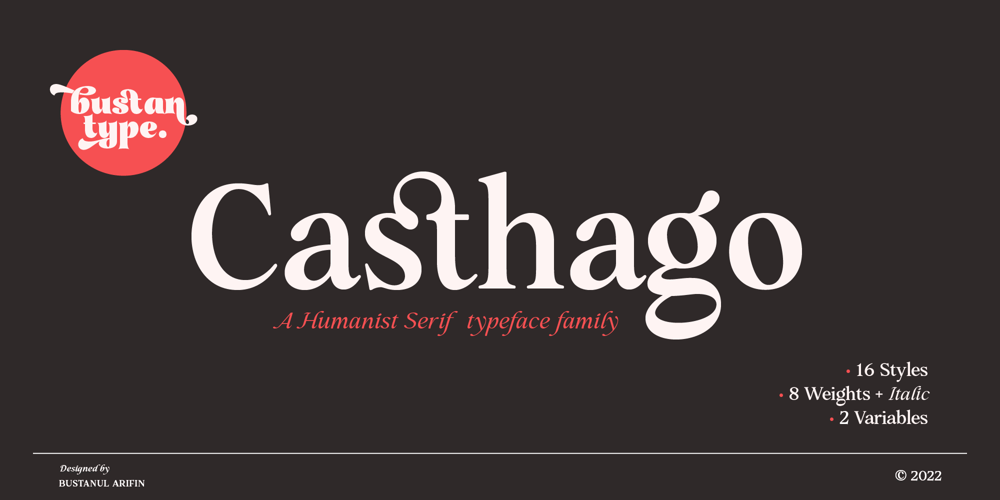
Casthago Font Family was designed by Bustanul Arifin and published by BustanType. Casthago contains 18 styles and family package options. Casthago is a transitional, humanist serif typeface family, comes with some contrast in the stroke and medium curve braketed serif that creates a very classic and traditional feel.Casthago designed for body text, creating a steady and readable rhythm, made for immersive reading. Some Character comes with alternate style ‘a,h,m,n’ that inspirated by Carolingian manuscript that was popular in medieval European period.Casthago consists of 16 styles from Extralight to black including italic styles and 2 variable fonts addition.